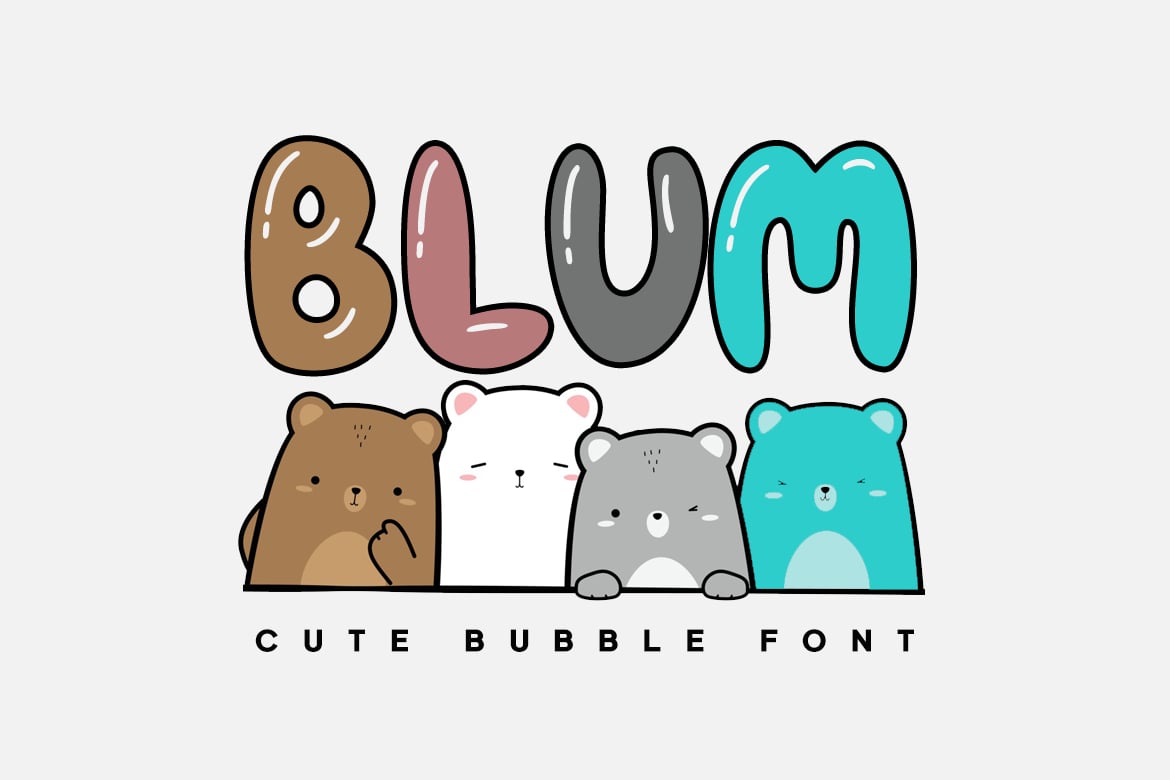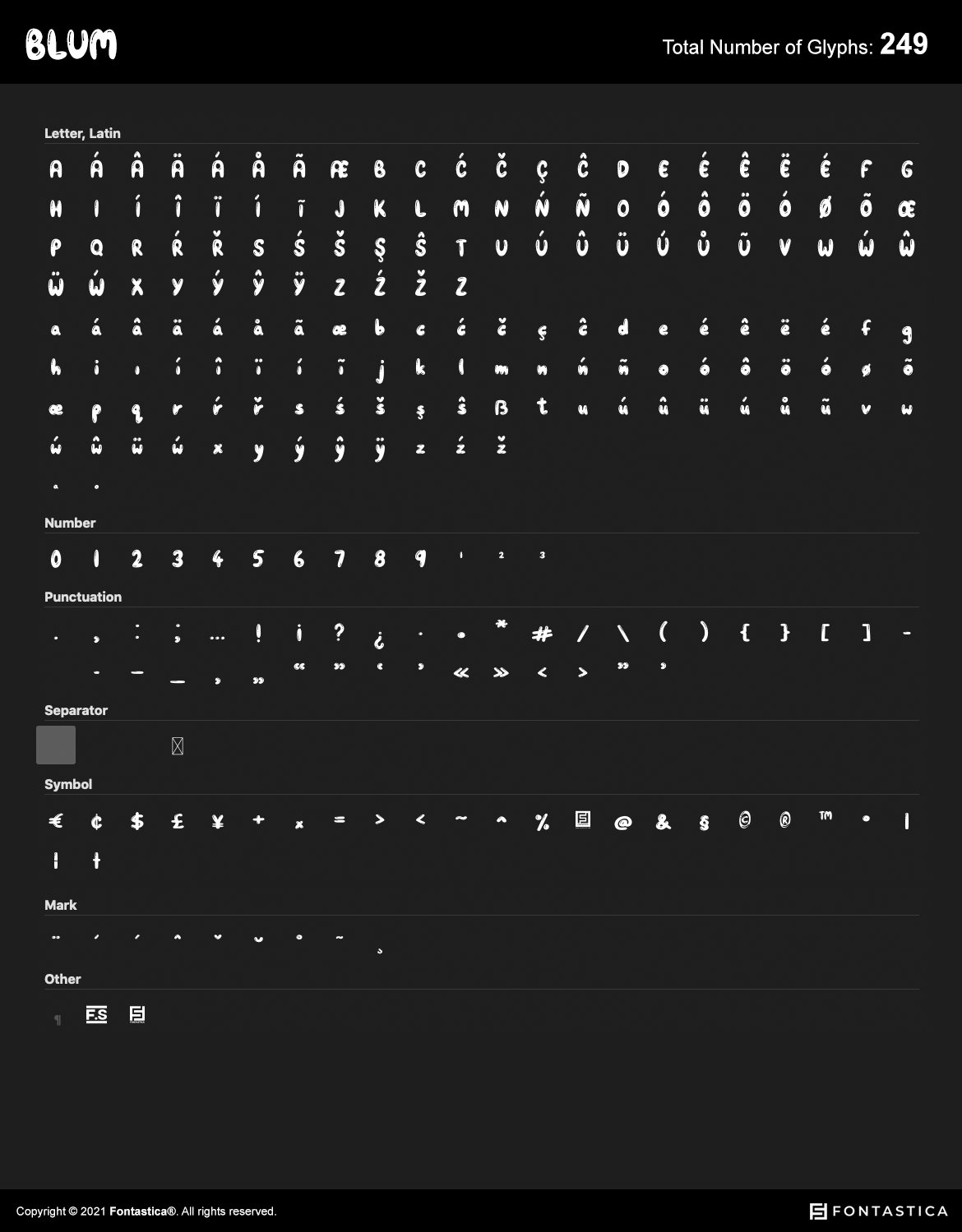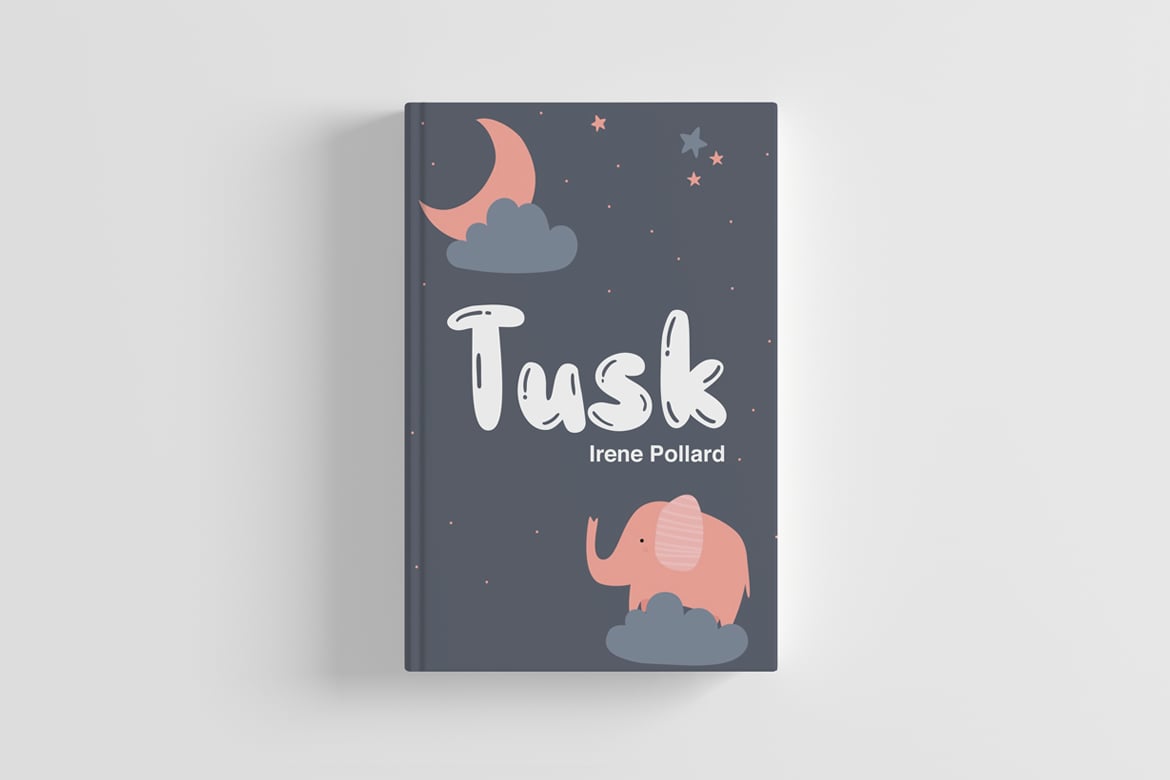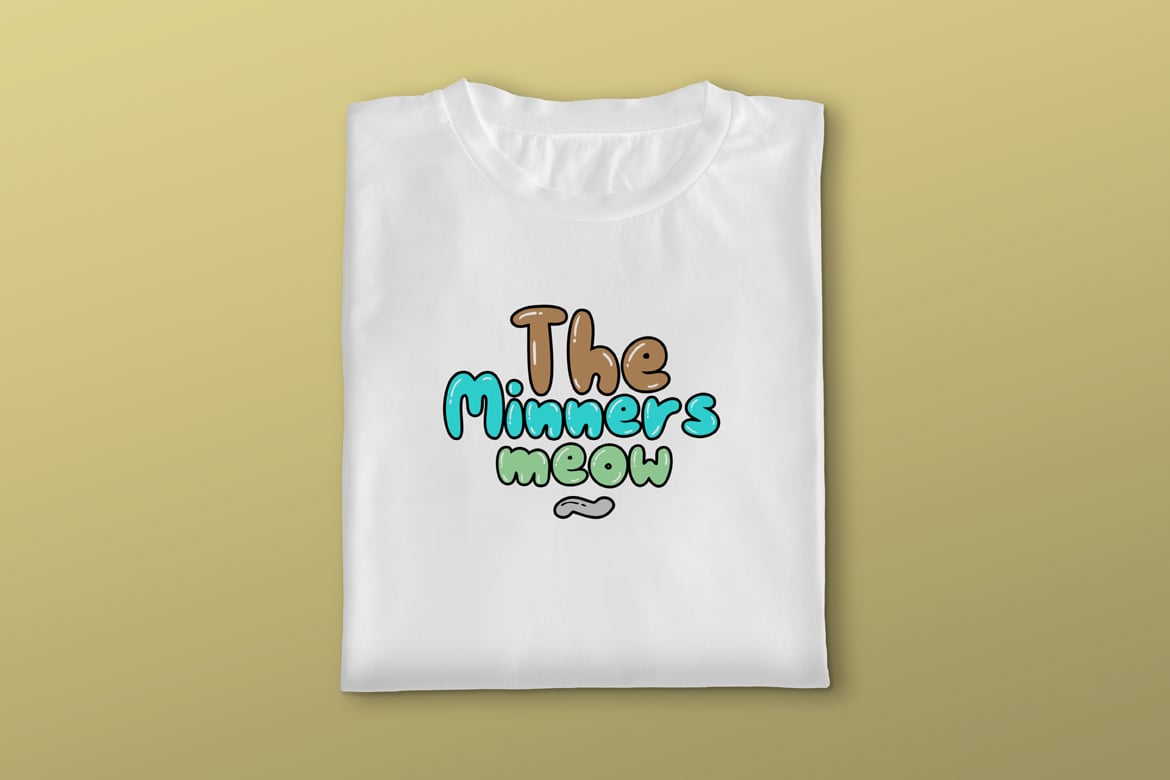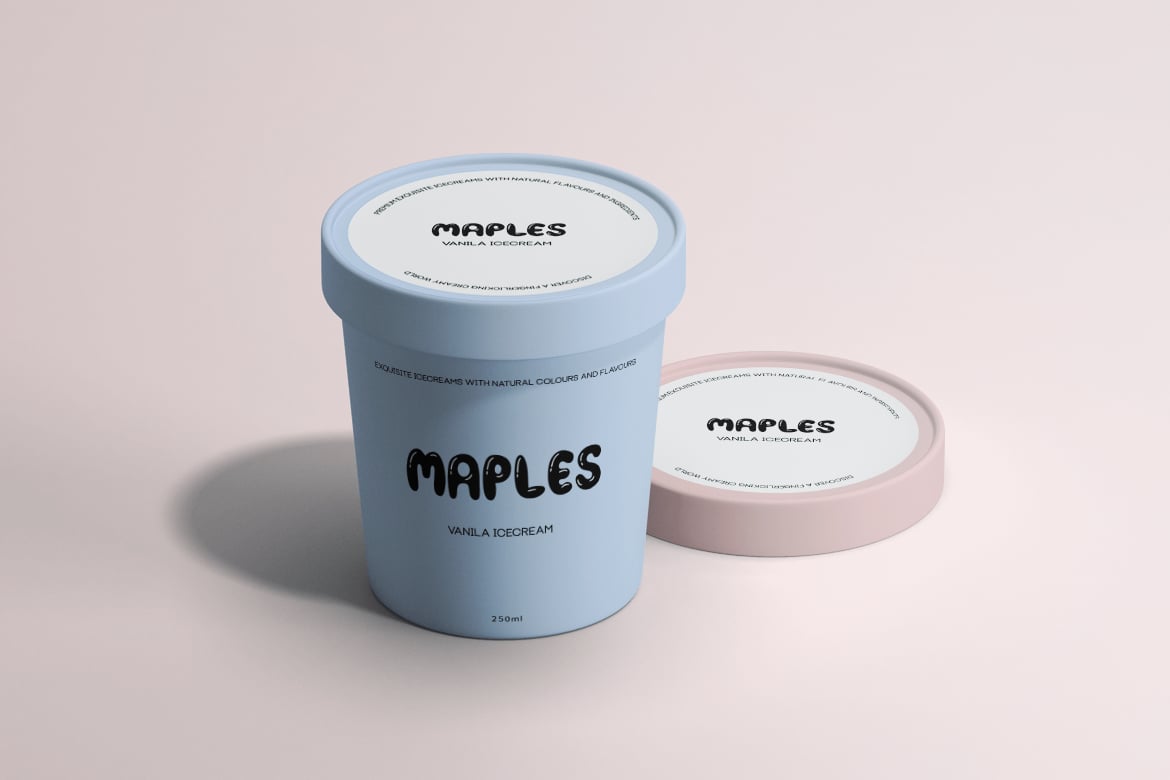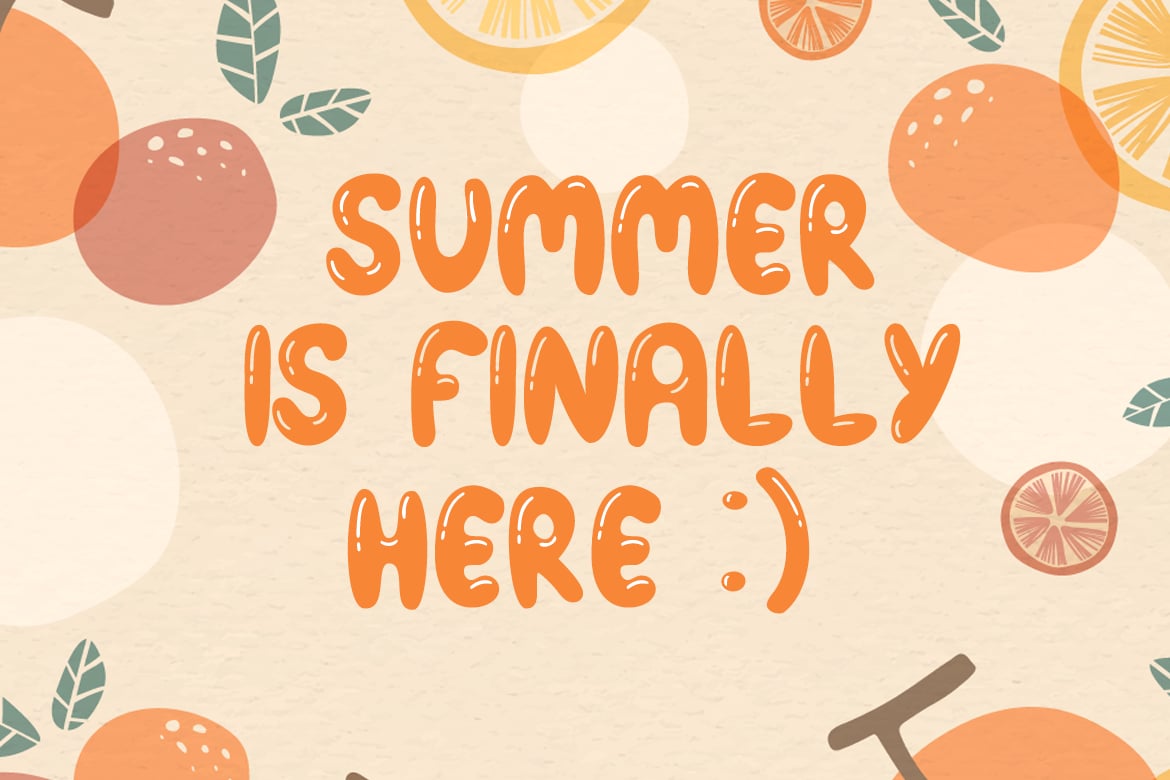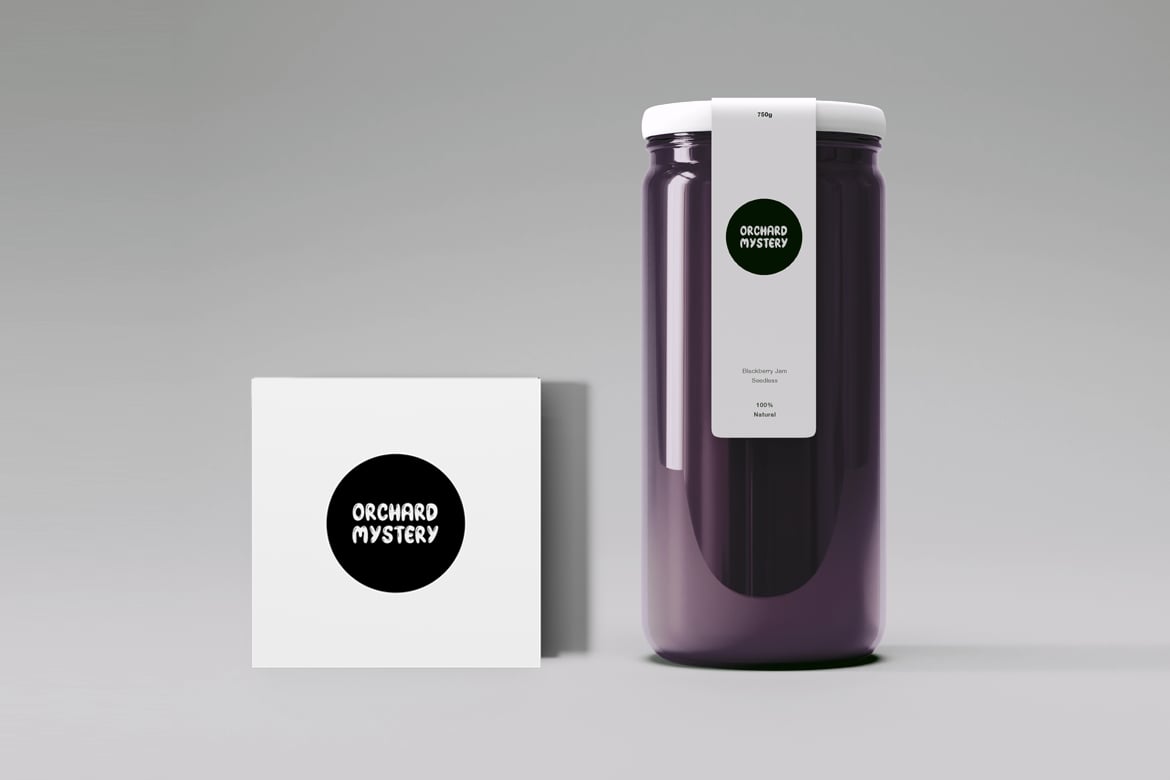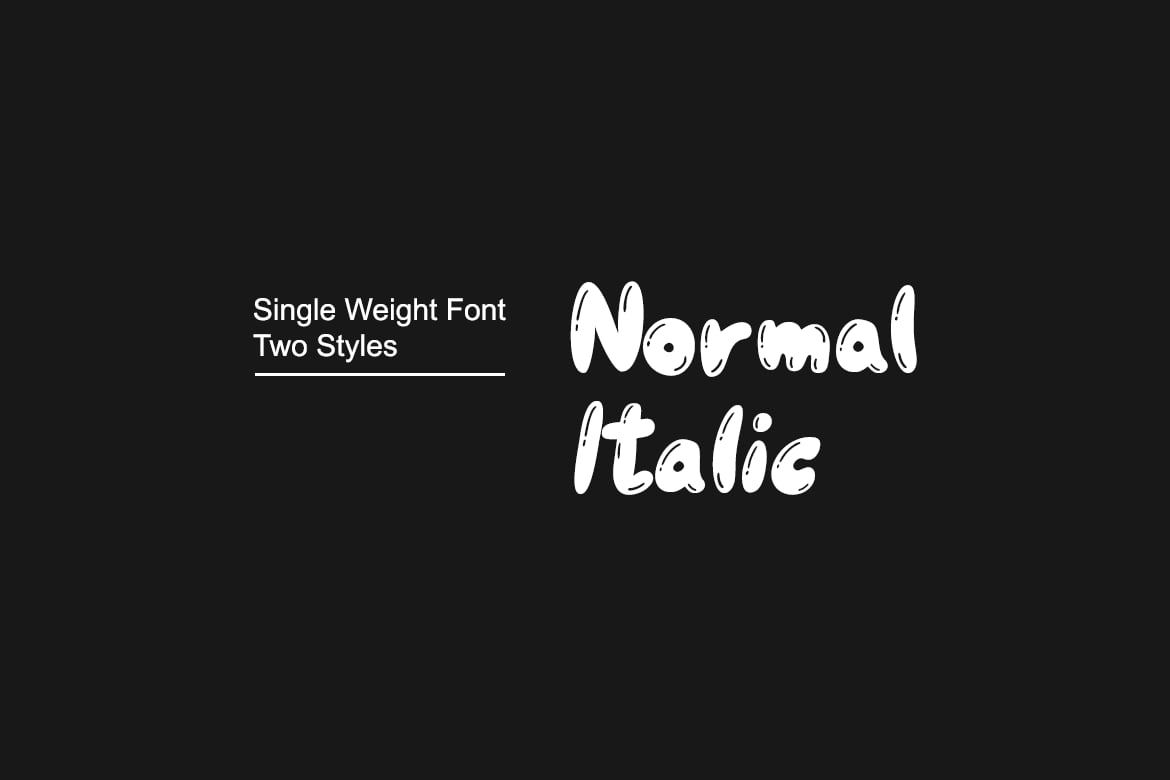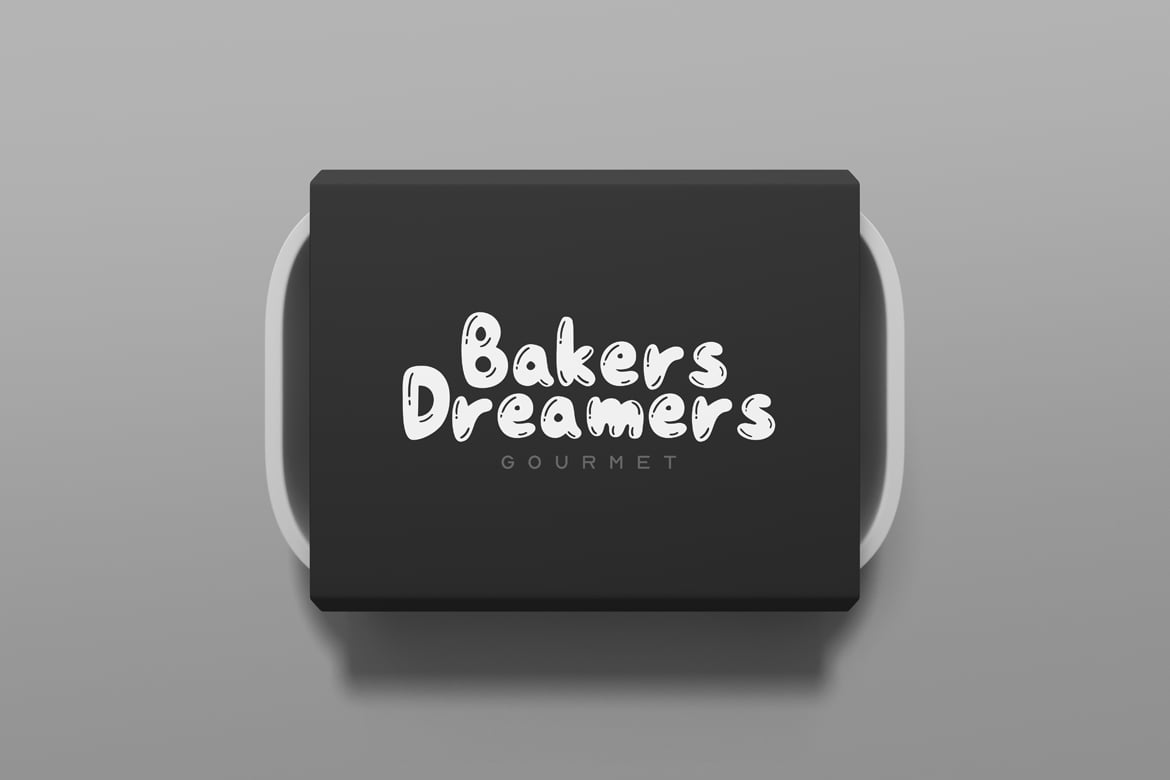
BLUM – Cute & Lovely Bubble Font
BLUM is a beautiful bubble font for lovely logotypes, branding & display usage. This font is perfect for creating outstanding logos, promotional content, and marketing graphics that can really grab the attention of your visitors. Please see the examples shown above to get an idea about the capability of this font.
This font is specially handmade with great OpenType features in mind, each weight includes extended language support including Western European & Central European sets. A total of 249 glyphs are included.